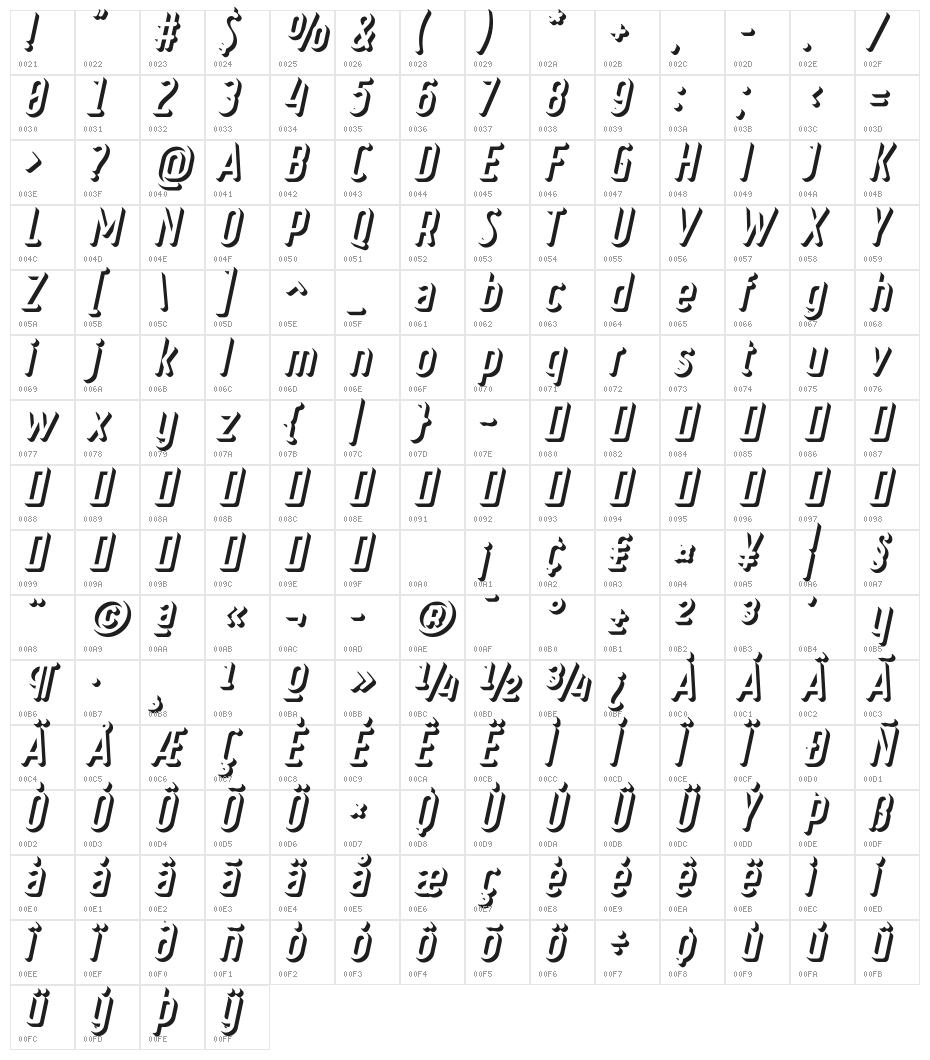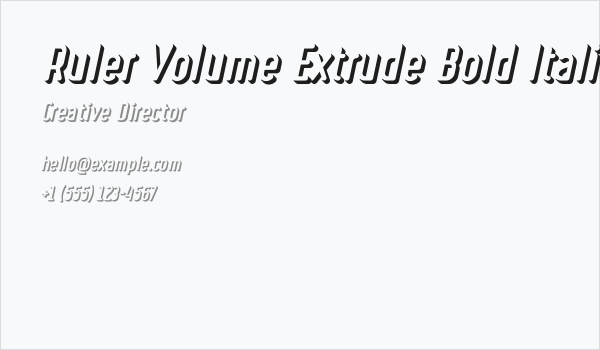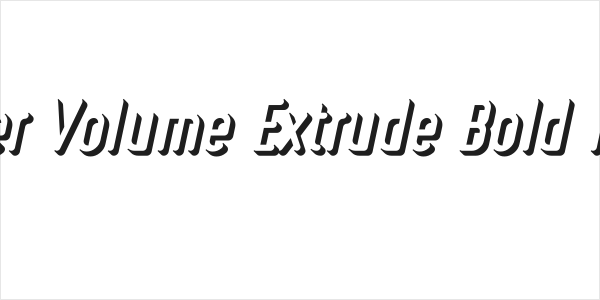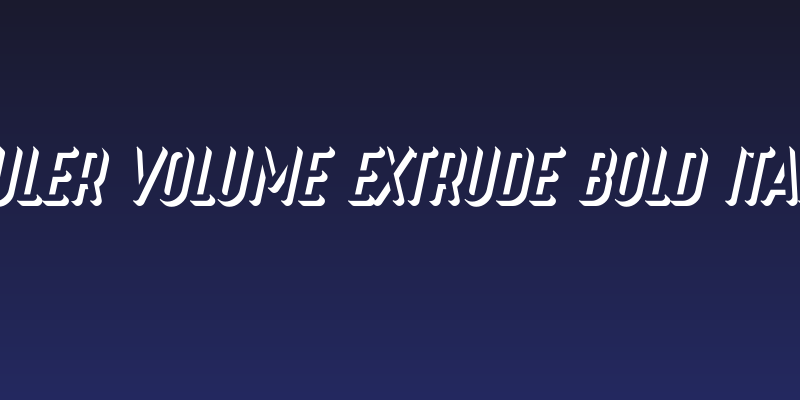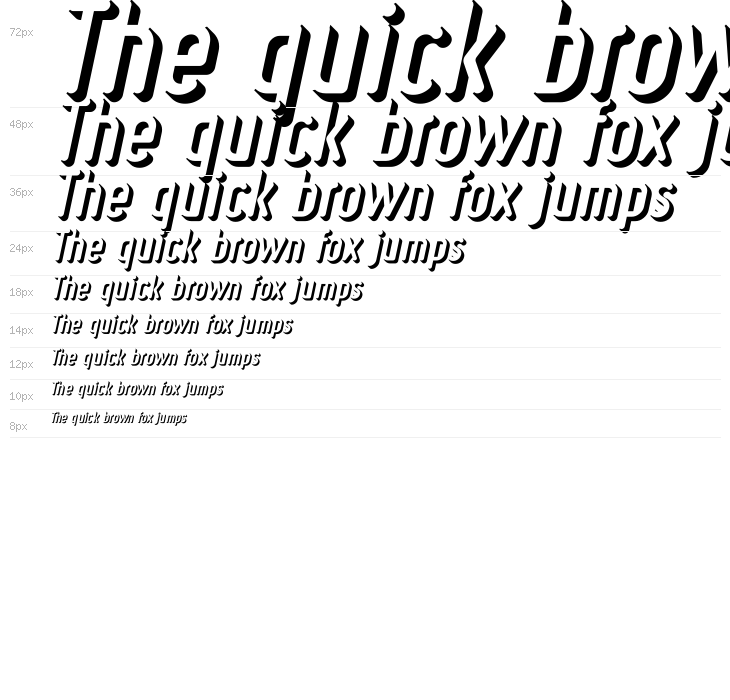
Ruler Volume Extrude Bold Italic Font
Ruler Volume Extrude Bold Italic Description
This font features a bold and italicized style with a distinct three-dimensional effect, achieved through the use of shadowing and extrusion. The characters are sharply angled, giving them a dynamic and energetic appearance. The uppercase and lowercase letters maintain a consistent slant, enhancing the italicized look. The numerals and special characters follow the same design principles, ensuring uniformity across all glyphs. This font's boldness and unique style make it stand out, suitable for projects that require a strong visual impact.
| Proposed Projects | Ideal for posters, logos, headlines, and any design requiring a bold, eye-catching typeface. |